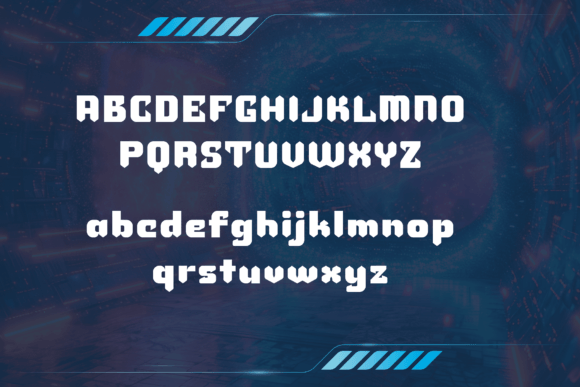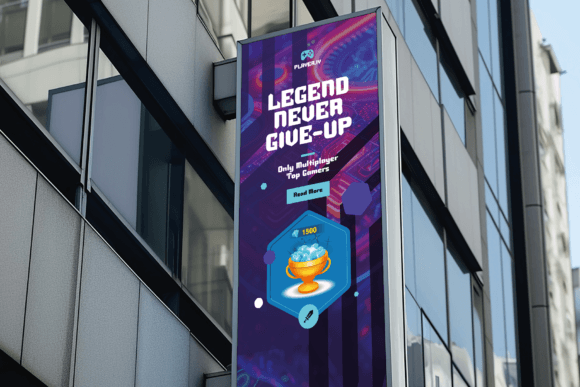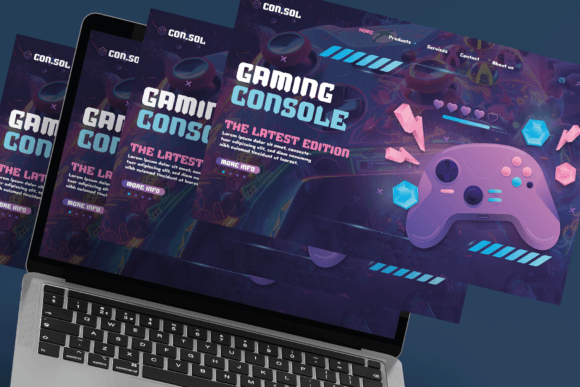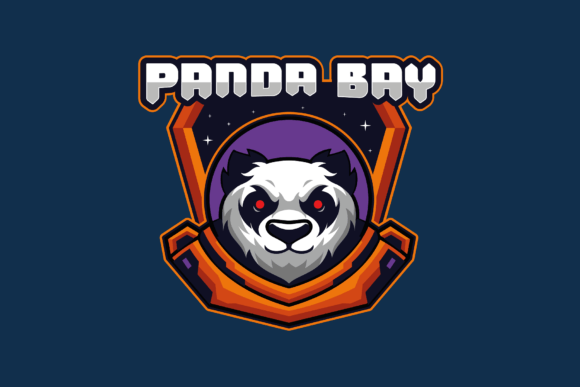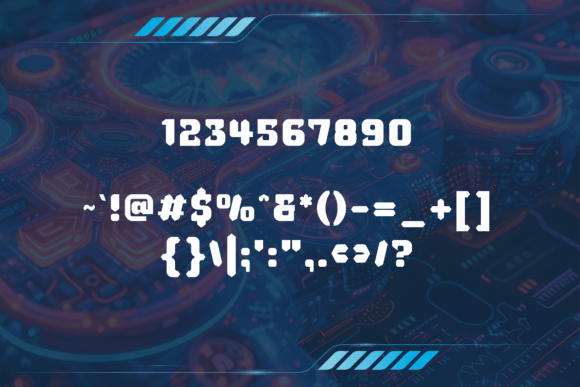
Introduction to Alpha Titan Font
Have you ever been in the midst of a heated gaming session, surrounded by the pulsating energy of a live tournament? The rush of adrenaline as your favorite team scores a crucial point, the thrill of competition in the air – it’s a feeling like no other. And what better way to capture that intensity than with a font that embodies the spirit of esports? Enter the Alpha Titan Font, a bold and dynamic typeface designed to electrify your creative projects.
As a designer, you’re always on the lookout for that perfect font to give your work an edge. With Alpha Titan Font, you’ve got a powerful tool at your disposal. Its unique blend of sharp lines and futuristic elements makes it perfect for esports branding, team logos, and promotional materials. Whether you’re working on a high-quality design project or simply need a striking font for a social media graphic, Alpha Titan Font is sure to deliver.
Key Features of Alpha Titan Font
- High-quality design resource suitable for various creative projects, including logos, graphics, and typography.
- Designed with a unique, modern aesthetic, setting it apart from other fonts in its class.
Honest Review: Alpha Titan Font
I recently had the chance to work with the Alpha Titan Font on a creative project and was pleasantly surprised by its quality. As a designer, I appreciate fonts that are not only visually appealing but also versatile and easy to use.
Here are some of the things that worked well for me:
- ✨ The font’s high quality and crisp lines made it perfect for creating eye-catching headlines and titles.
- ✨ The transparent background option allowed me to easily layer the font over different images and designs.
- ✨ The font’s modern and bold aesthetic made it a great fit for my project’s futuristic theme.
- ⚠️ The font’s limited character set made it difficult to use for longer blocks of text.
- ⚠️ The font’s bold style can be overwhelming if used too extensively.
Overall, I was impressed by the Alpha Titan Font and would recommend it as a high-quality design resource for anyone working on a creative project. While it may have some limitations, its strengths far outweigh its weaknesses, making it a valuable addition to any designer’s toolkit.
Tips for Getting the Most Out of Alpha Titan Font
Alpha Titan Font is a high-quality design resource that can elevate your creative project. To get the most out of it, use it on a transparent background to give your design a clean and modern look. Experiment with different font sizes and styles to find the perfect combination for your project.
Alpha Titan Font is perfect for creating a professional logo, branding materials, or marketing materials. It’s also great for designing websites, social media graphics, or presentations. With its transparent background and high-quality design, Alpha Titan Font is a versatile and valuable design resource.